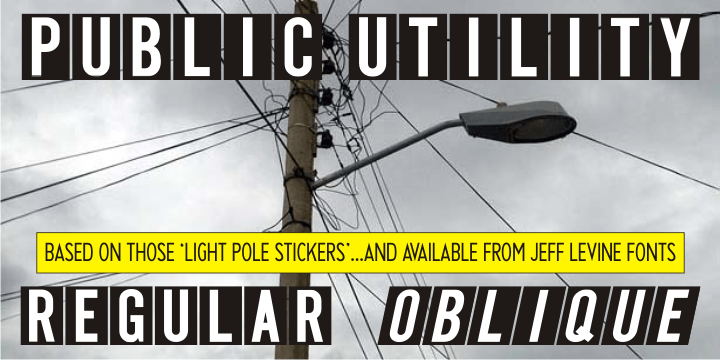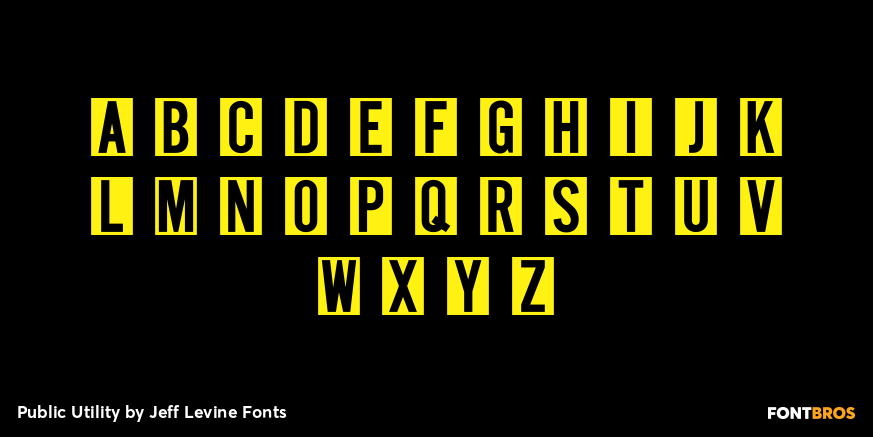
Public Utility
Public Utility JNL digitally duplicates the look of those small white-on-black self-adhesive stickers used by cities, power companies and telecommunication firms in order to identify utility poles and other service locations.
A blank rectangle is available on both the solid and broken vertical bar positions.
Public Utility JNL Regular by Jeff Levine Fonts